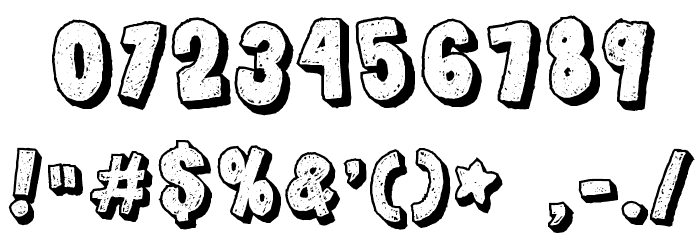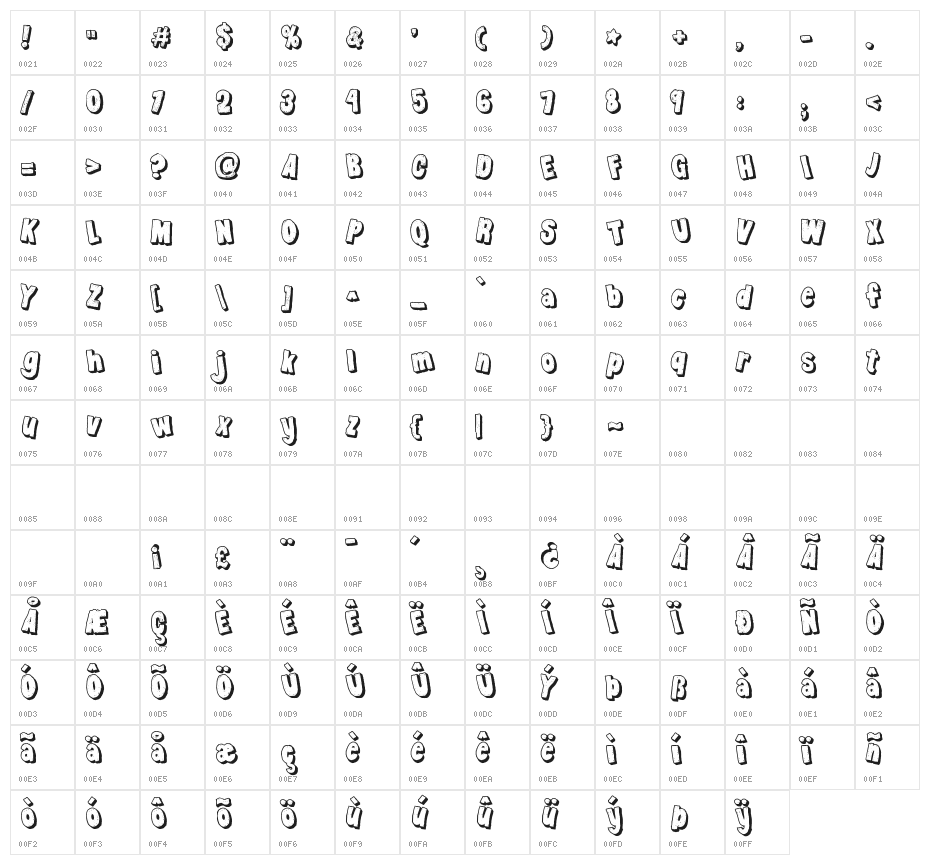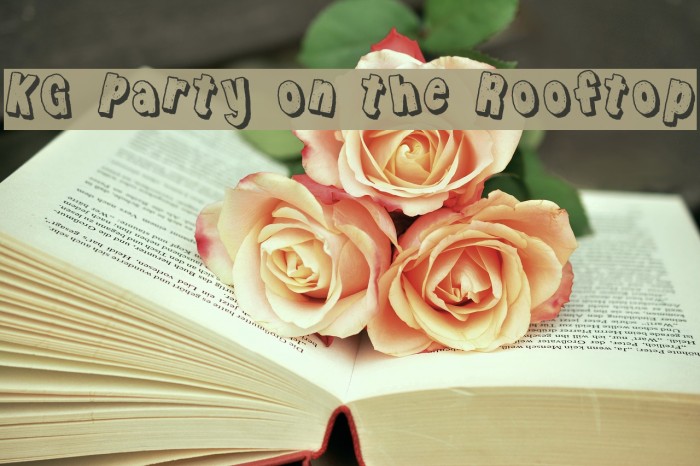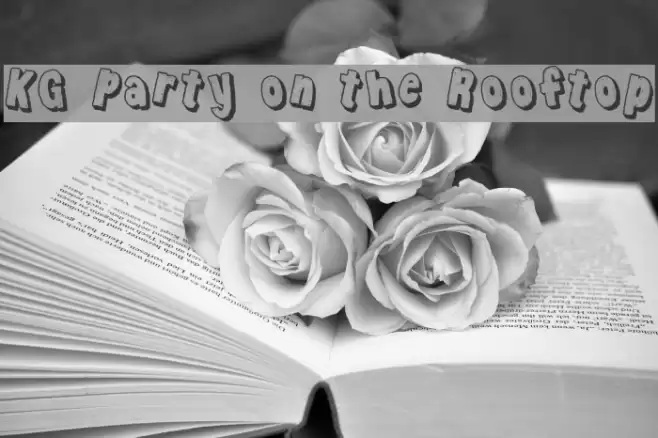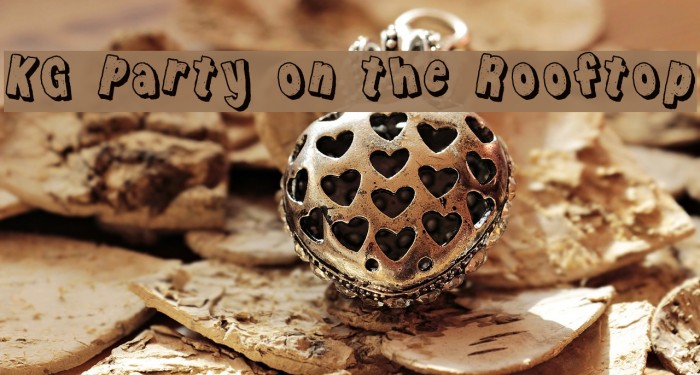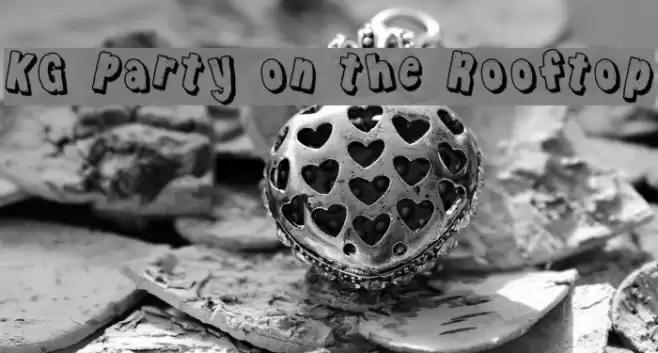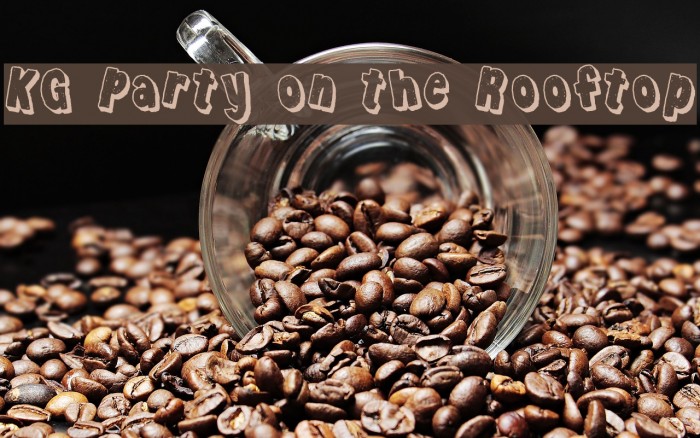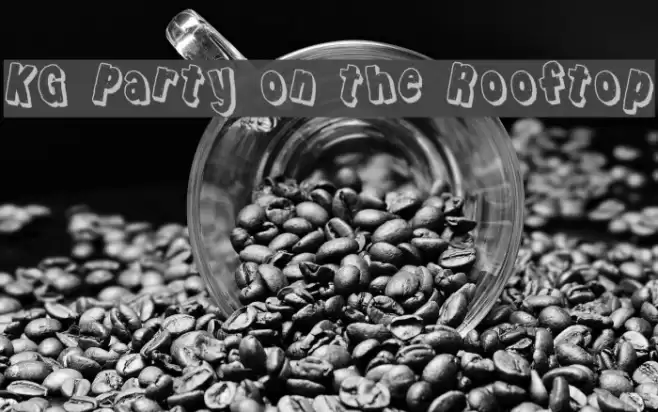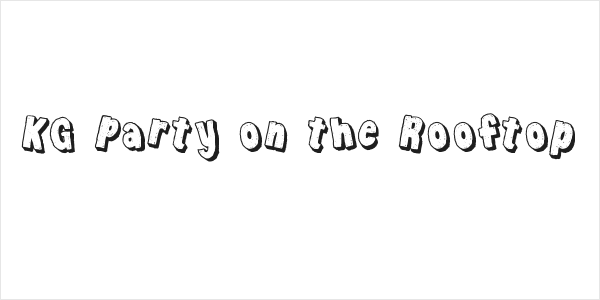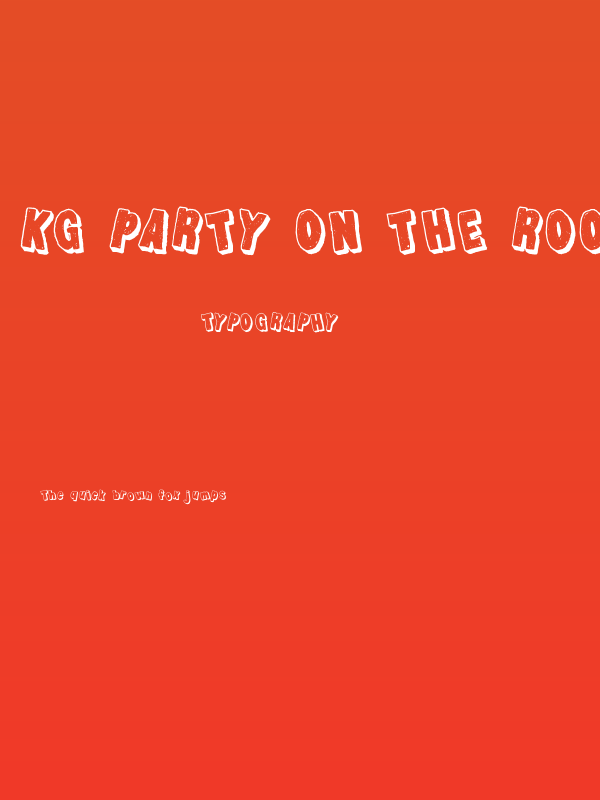
KG Party on the Rooftop Font
KG Party on the Rooftop Description
This playful and bold font features a hand-drawn, textured style that gives it a lively and energetic appearance. The letters are slightly irregular, adding a whimsical touch, while the bold strokes ensure strong visibility. The texture within each character resembles a chalk or crayon effect, making it ideal for informal and fun designs. The font maintains a consistent weight across all characters, providing a cohesive look. Its unique style is perfect for projects that require a touch of creativity and playfulness.
| Overall Style | Playful and Creative |
| Use Case | Headlines, Posters, Invitations |
| Proposed Projects | Ideal for children's book covers, party invitations, playful posters, and creative branding projects. |